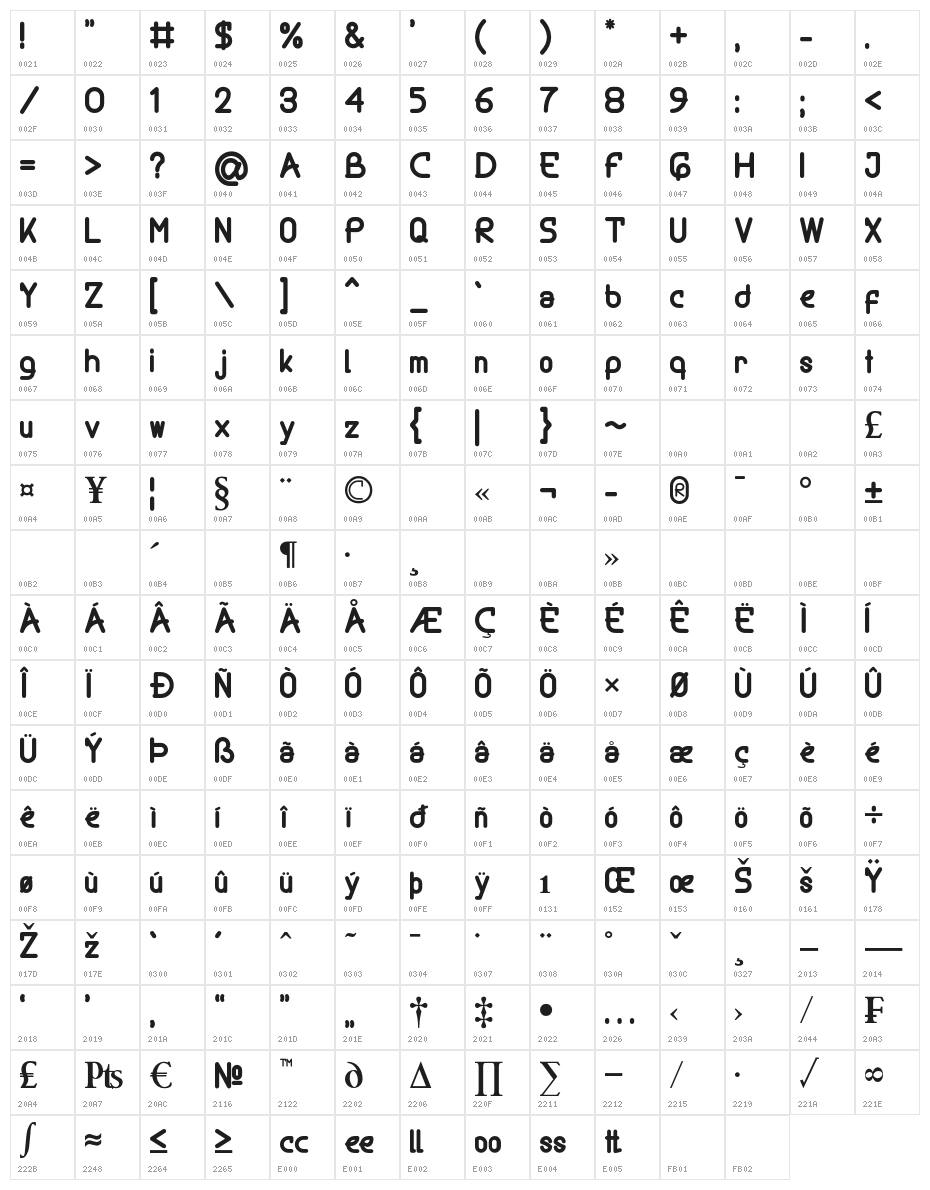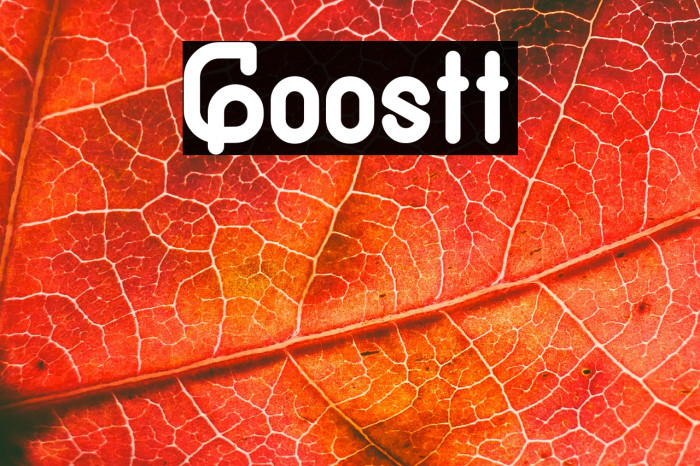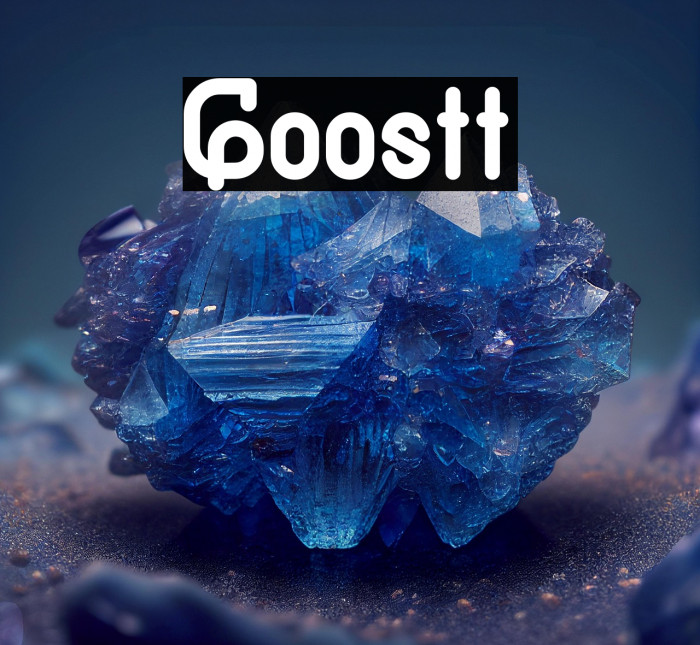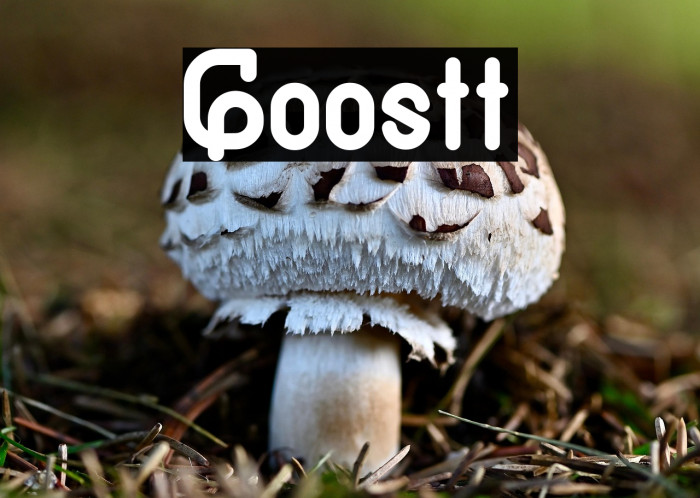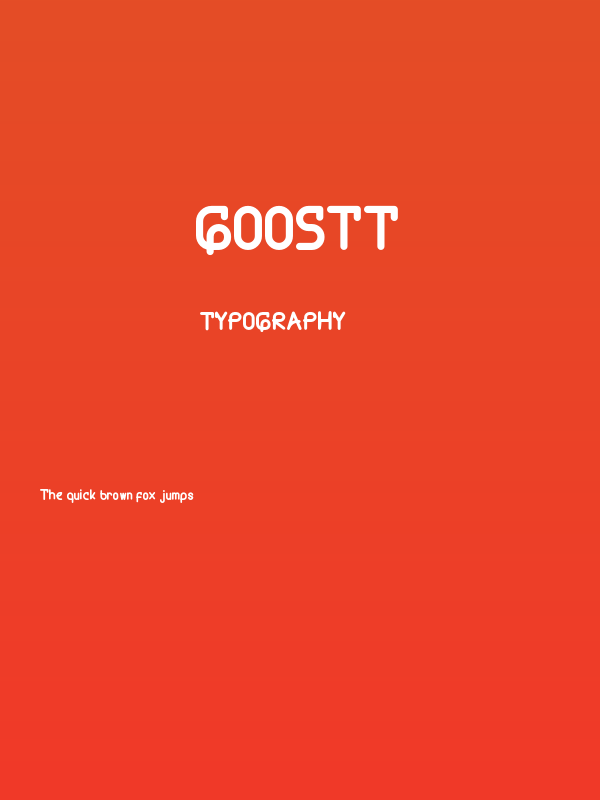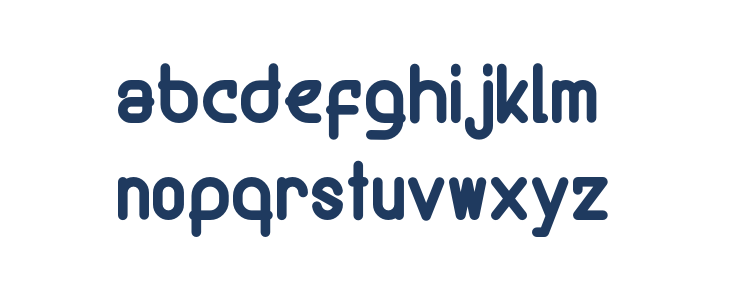
Goostt Font
Goostt Description
This font features a playful and rounded design, characterized by its bold and smooth curves. The letters are evenly spaced, providing a clean and approachable appearance. The uppercase and lowercase characters maintain a consistent style, with rounded edges and a uniform stroke width. Numbers and special characters follow the same design principles, ensuring a cohesive look across all elements. The font's friendly and modern aesthetic makes it suitable for a variety of creative applications.
| Proposed Projects | Ideal for children's books, playful branding, casual invitations, and social media graphics. |